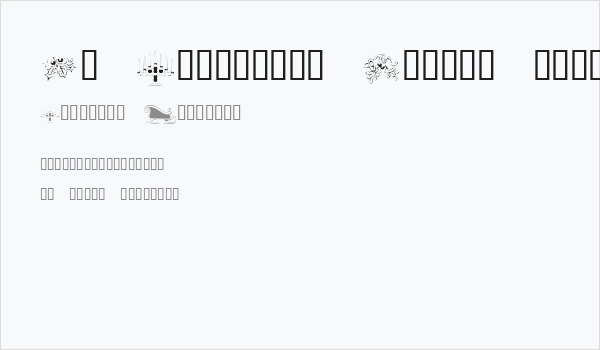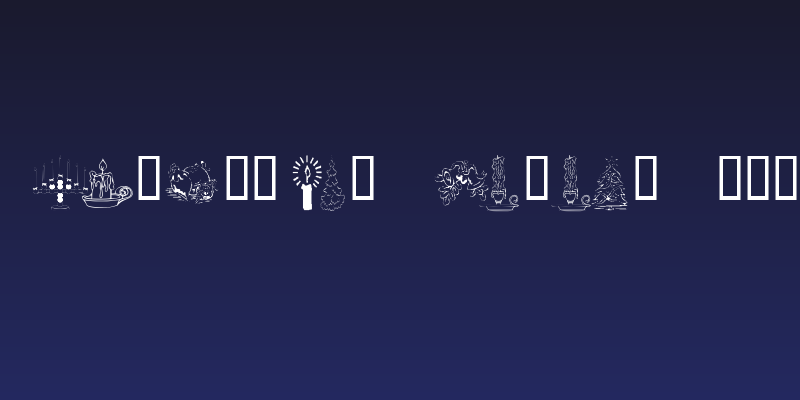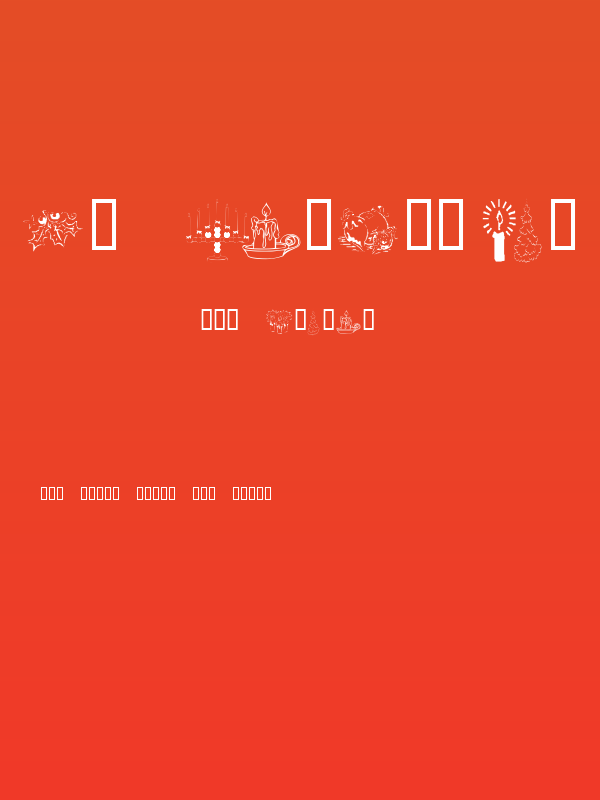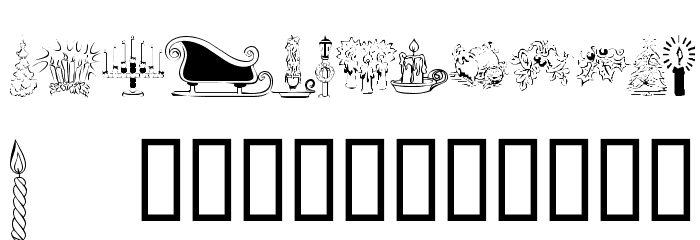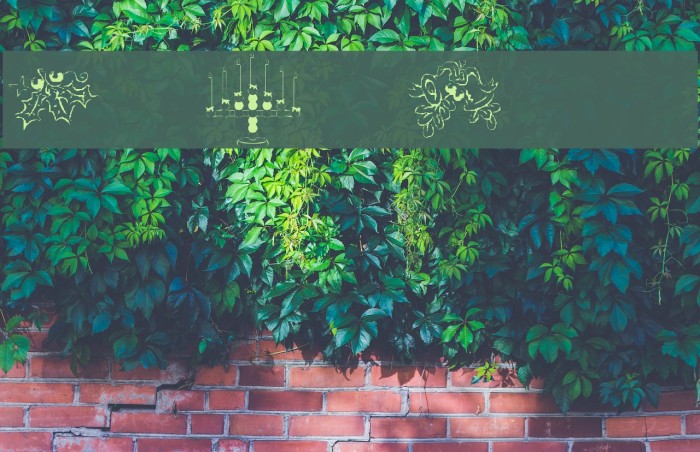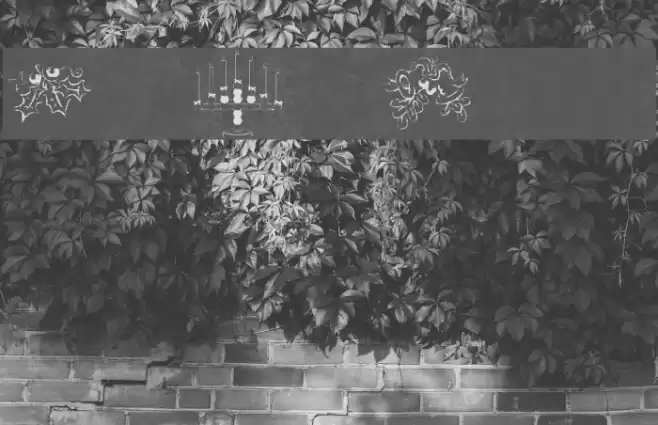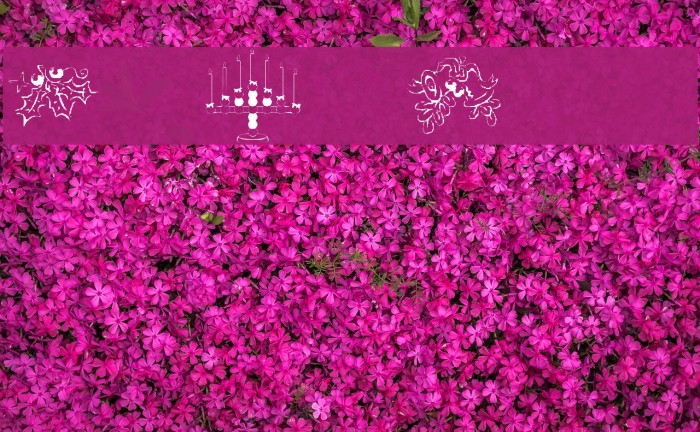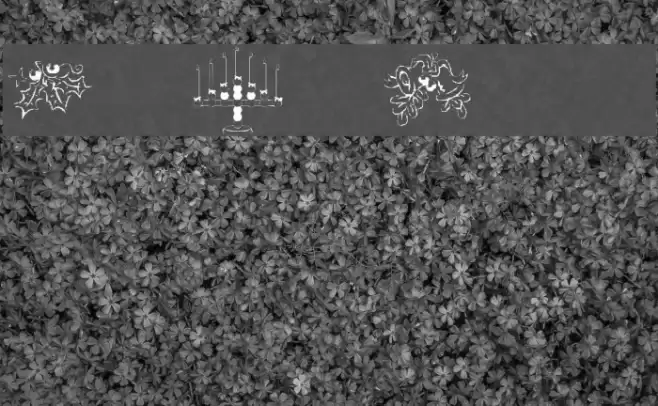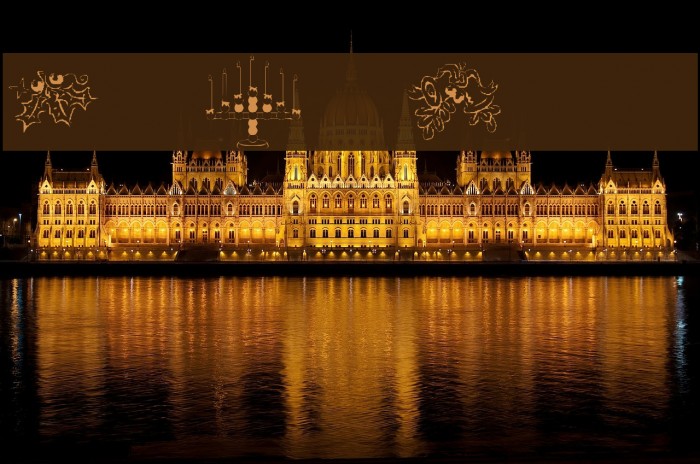
KR Christmas Jewels 2005 4 Font
KR Christmas Jewels 2005 4 Description
This is a decorative font featuring a series of Christmas-themed illustrations instead of traditional alphanumeric characters. The design includes festive elements such as candles, sleighs, holly, and Christmas trees, each intricately detailed to convey a sense of holiday cheer. The illustrations are arranged in a linear fashion, creating a border-like effect that can be used to embellish holiday cards, invitations, or festive decorations. The style is whimsical and playful, capturing the essence of the Christmas season with a touch of elegance.
| Use Case | Logos, Decorative elements |
| Proposed Projects | Ideal for holiday cards, festive invitations, Christmas-themed posters, and decorative borders. |